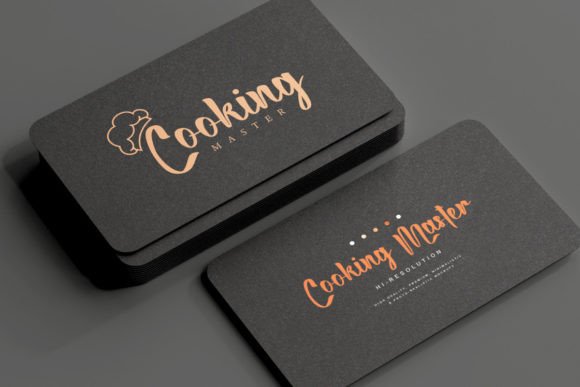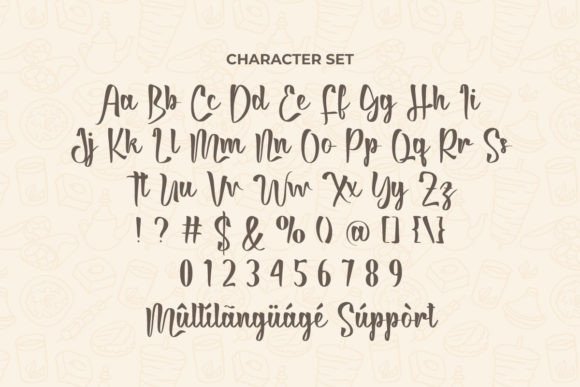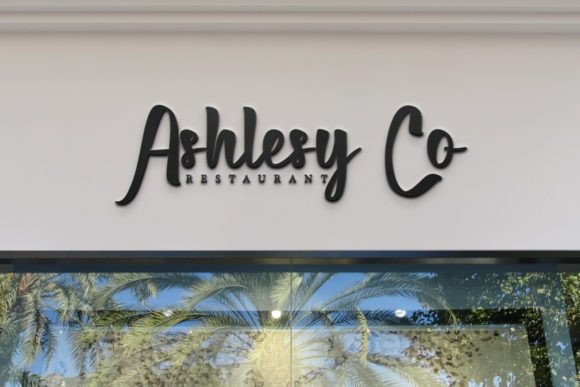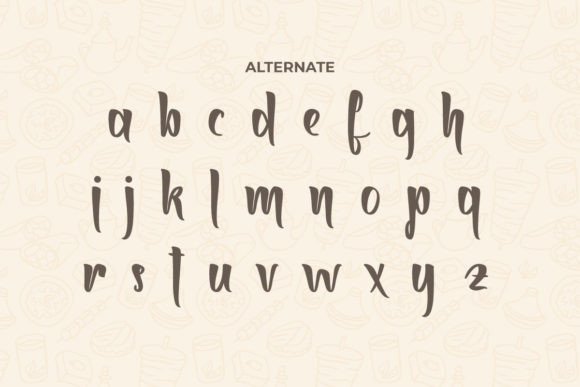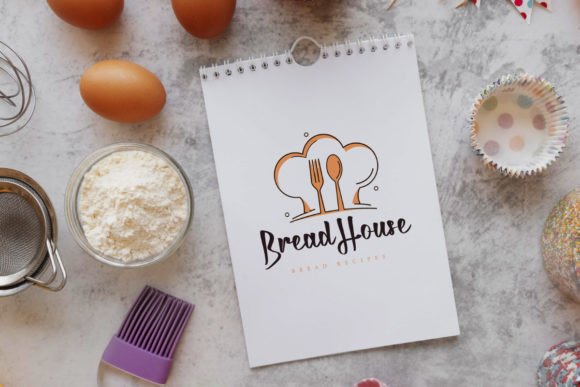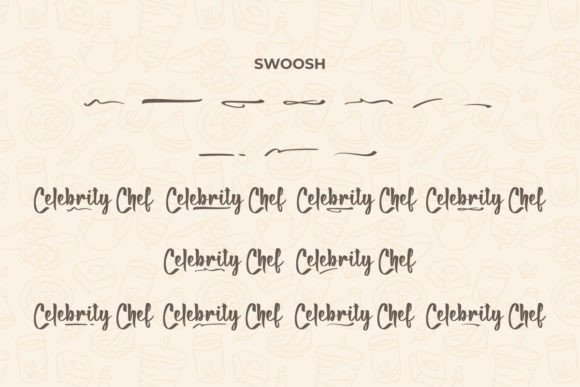
Celebrity Chef: The Ultimate Font for Upscale Branding and Editorial Design
In the world of design, fonts play a crucial role in conveying the tone and personality of a brand. For designers and crafters looking to create upscale branding and editorial designs, a font that exudes sophistication and luxury is essential. This is where Celebrity Chef comes in – a sleek and elegant script font that is perfect for high-end designs.
The Characteristics of Celebrity Chef
Celebrity Chef is a script font that boasts a flowing, hand-drawn style with graceful curves. Its elegant appearance makes it an ideal choice for designs that require a touch of sophistication and luxury. The font’s sleek lines and refined features give it a polished look that is sure to make a lasting impression.
Perfect for Upscale Branding
When it comes to branding, a font can make or break the identity of a company. Celebrity Chef is designed to help businesses create a luxurious and high-end brand image. Its elegant appearance makes it perfect for logos, packaging, and other marketing materials that require a sophisticated look. Whether you’re designing a brand identity for a high-end restaurant, a luxury fashion brand, or a premium product, Celebrity Chef is the perfect choice.
Ideal for Editorial Design
Celebrity Chef is not just limited to branding; it’s also perfect for editorial design. The font’s elegant appearance makes it ideal for use in magazines, newspapers, and other publications that require a touch of sophistication. Whether you’re designing a feature article, a headline, or a title page, Celebrity Chef is sure to add a touch of luxury to your design.
Versatility of Celebrity Chef
One of the best things about Celebrity Chef is its versatility. The font can be used for a wide range of designs, from logos and packaging to menus and editorial designs. Its elegant appearance makes it perfect for use in various industries, including:
- Restaurants and food industry
- Luxury fashion and beauty
- Hospitality and tourism
- Premium products and services
Why Choose Celebrity Chef?
There are many fonts available in the market, but Celebrity Chef stands out from the rest. Here are some reasons why designers and crafters should choose Celebrity Chef:
- Elegant appearance: Celebrity Chef has a sleek and elegant appearance that is perfect for upscale branding and editorial design.
- Versatility: The font can be used for a wide range of designs, from logos and packaging to menus and editorial designs.
- Sophistication and luxury: Celebrity Chef exudes sophistication and luxury, making it perfect for high-end designs.
- Easy to read: Despite its elegant appearance, Celebrity Chef is easy to read, making it perfect for use in body text and headlines.
Tips for Using Celebrity Chef
To get the most out of Celebrity Chef, here are some tips for using the font:
- Use it sparingly: Celebrity Chef is a elegant font, so use it sparingly to avoid overwhelming the design.
- Pair it with a sans-serif font: Pair Celebrity Chef with a sans-serif font to create a beautiful contrast.
- Experiment with font sizes: Experiment with different font sizes to create visual hierarchy and emphasis.
Celebrity Chef is a sleek and elegant script font that is perfect for upscale branding and editorial design. Its flowing, hand-drawn style and graceful curves make it a sophisticated and luxurious font that is sure to make a lasting impression. With its versatility, elegance, and ease of use, Celebrity Chef is an ideal choice for designers and crafters looking to create high-end designs.